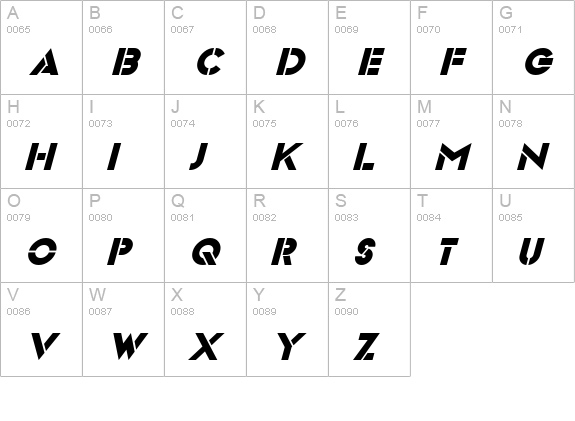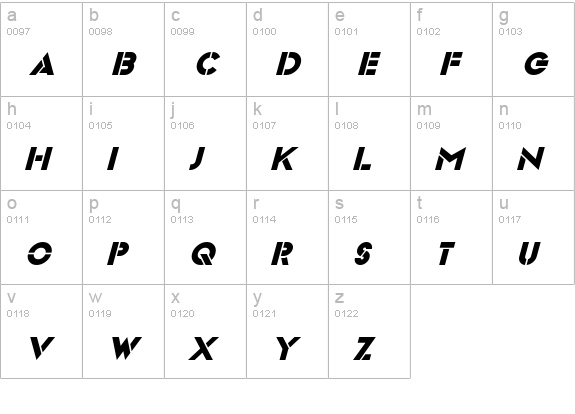
Videopac Italic Font Details
Videopac Italic is a distinctive, italic variant in the Videopac typeface family \xE2\x80\x94 well suited to design and typography projects.
Videopac Italic font is a stunning and versatile typeface that effortlessly combines elegance with a touch of playfulness. This font is perfect for those seeking a unique and eye-catching design for their projects. With its sleek and stylish letterforms, Videopac Italic creates a captivating visual impact that is sure to grab attention. The flowing curves and balanced proportions of this font make it ideal for a wide range of applications, from branding and logo design to packaging and editorial layouts. Whether you're looking to create a striking headline or add a touch of sophistication to your body text, Videopac Italic is the perfect choice. What makes this font even more remarkable is that it is available for free! You can easily download Videopac Italic at FontsMarket.com. This means that you have the opportunity to enhance your designs with a high-quality and professionally crafted font without spending a dime. So, why wait? Unleash your creativity and download Videopac Italic now to elevate your design projects to new heights.